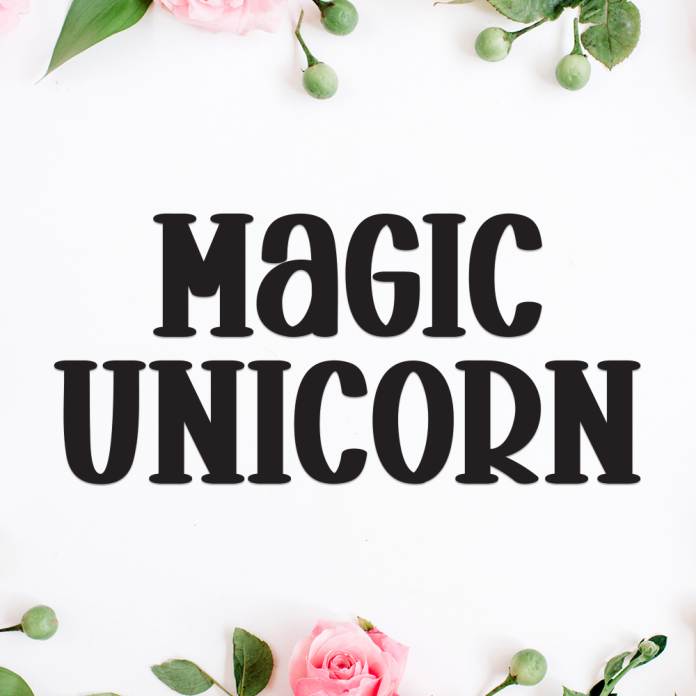
Magic Unicorn is a dreamy and playful display font bursting with charm and imagination. Inspired by the magical world of fairy tales, rainbows, and fantasy creatures, this font brings a spark of wonder to any design.
Perfect for kids’ projects, birthday invitations, fantasy-themed merchandise, storybooks, and anything that needs a sprinkle of magic, Magic Unicorn is your go-to font for joyful and imaginative creations.
Whimsical and eye-catching display style
Fun, bouncy letterforms full of personality
Ideal for children’s content, parties, and fantasy themes
Includes uppercase & lowercase, numbers & punctuation
Let your creativity shine bright with Magic Unicorn — the display font that turns every design into a magical adventure!